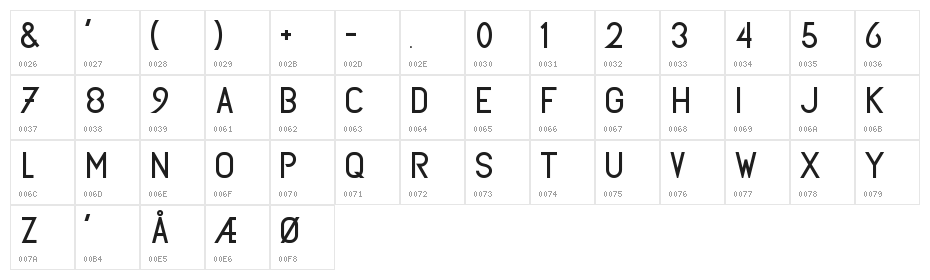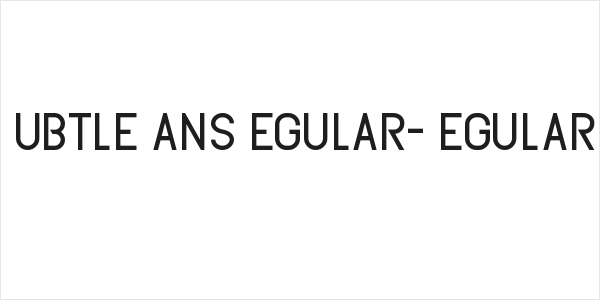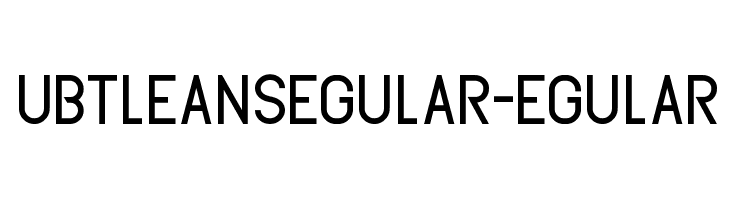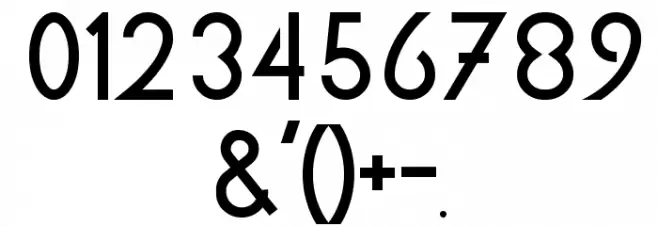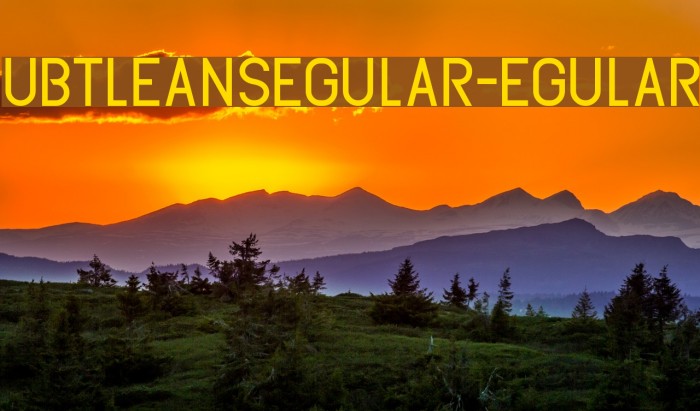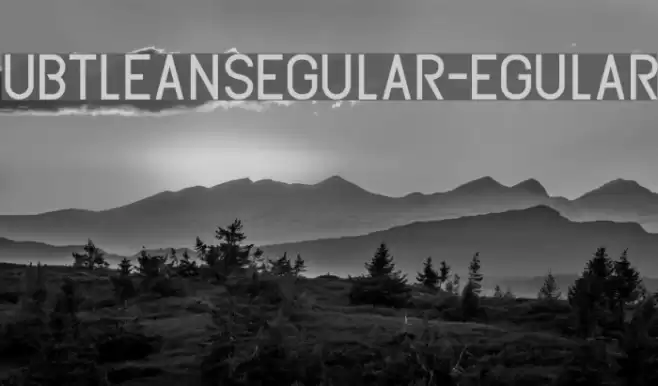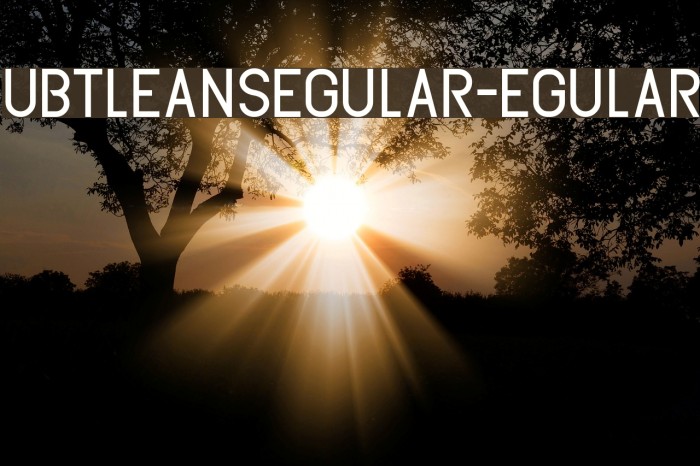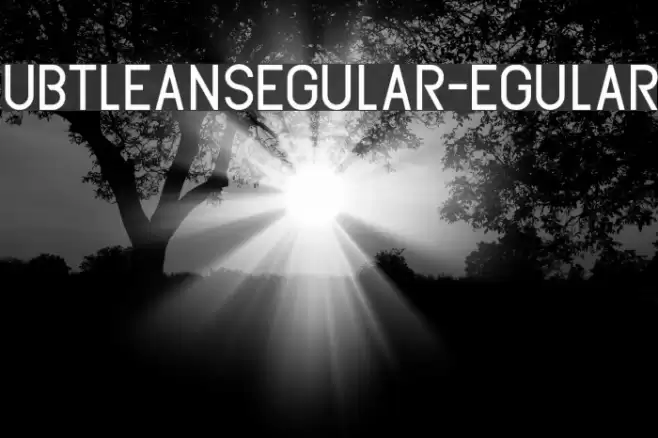
SubtleSansRegular-Regular Font
SubtleSansRegular-Regular Description
This font features a clean and modern sans-serif style, characterized by its geometric shapes and uniform stroke widths. The letters are well-proportioned, with a slight roundness that adds a touch of softness to the overall appearance. The uppercase letters are bold and assertive, while the lowercase letters maintain a consistent height and spacing, ensuring readability. The numerals are clear and distinct, matching the overall aesthetic of the font. Special characters are designed with the same attention to detail, making this font versatile for various applications.
| Use Case | Headlines, Body text, Logos |
| Proposed Projects | Ideal for branding, web design, and print materials where clarity and modernity are key. |